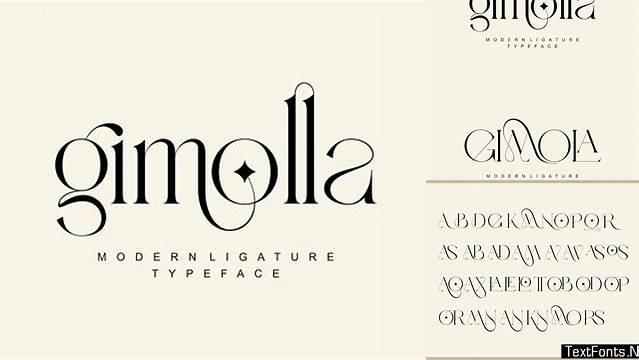
Gimolla Font: Free Download & Modern Ligature Serif
Hey guys! Are you on the hunt for a font that screams elegance and modernity? Well, look no further! Today, we're diving deep into the world of the Gimolla font, a stunning ligature serif that's making waves in the design community. And the best part? You can find a free download! In this article, we'll explore everything about Gimolla, from its unique features to how you can use it in your projects. Get ready to elevate your designs with this fantastic typeface!
What Makes Gimolla Font So Special?
Gimolla isn't just another font; it's a carefully crafted piece of art that blends the classic charm of serif fonts with the contemporary flair of ligatures. But what exactly makes it stand out? Let's break it down.
The Elegance of Serif Meets Modern Ligatures
The beauty of Gimolla lies in its seamless fusion of serif and ligature elements. Serif fonts have long been associated with tradition and readability, while ligatures add a touch of sophistication and uniqueness. Gimolla perfectly balances these two aspects, creating a typeface that's both timeless and trendy. This makes Gimolla incredibly versatile, suitable for a wide range of design projects, from branding to editorial design.
Gimolla's Unique Character Set
Gimolla boasts a comprehensive character set, including uppercase and lowercase letters, numerals, punctuation marks, and, most importantly, a variety of ligatures. These ligatures aren't just decorative; they enhance the overall flow and aesthetic appeal of the text. They seamlessly connect letter pairs, creating a harmonious and visually pleasing effect. This attention to detail sets Gimolla apart and makes it a true gem in the world of typography.
Why Designers Are Falling in Love with Gimolla
Designers are drawn to Gimolla for its versatility and ability to add a touch of class to any project. Whether you're working on a logo, website, or print materials, Gimolla can elevate your design with its elegant curves and unique ligatures. It's a font that commands attention without being overpowering, making it an excellent choice for both headlines and body text.
Designing with Gimolla: Tips and Tricks
Now that you've got your hands on the Gimolla font, let's talk about how to use it effectively. Here are some tips and tricks to make the most of this elegant typeface:
Pairing Gimolla with Other Fonts
Gimolla, with its serif nature, pairs beautifully with a variety of sans-serif fonts. Consider pairing it with a clean, modern sans-serif like Montserrat or Open Sans for a balanced and contemporary look. This combination works well for logos, websites, and marketing materials.
Using Gimolla for Logos and Branding
Gimolla's sophistication makes it an excellent choice for logos and branding materials. Its ligatures add a unique touch that can help your brand stand out. Use it for your company name, tagline, or even as a decorative element in your logo design.
Gimolla in Web Design: Readability and Aesthetics
When using Gimolla on the web, consider its readability. While it looks stunning in headlines, you might want to use a slightly larger font size for body text to ensure a comfortable reading experience. Also, pay attention to line height and letter spacing to optimize readability.
Print Design Magic with Gimolla
In print design, Gimolla truly shines. Its elegant serifs and ligatures add a touch of class to brochures, posters, and business cards. Experiment with different weights and sizes to create visually appealing layouts that capture the reader's attention.
H2: Gimolla Font in Editorial Design: A Stylish Choice
Editorial design often requires fonts that are both stylish and readable, and Gimolla fits the bill perfectly. Its elegant serifs and ligatures can add a touch of sophistication to magazine layouts, book covers, and other editorial materials. This section will delve into the best practices for using Gimolla in editorial contexts. Providing examples of successful editorial designs that feature Gimolla can offer practical inspiration.